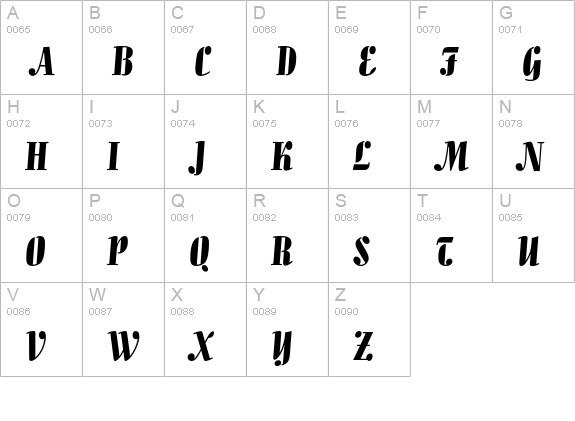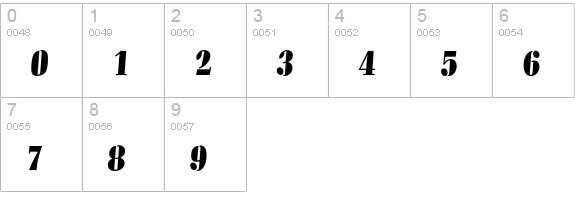
Allegro Font Details
Allegro font is a stunning display typeface that exudes elegance and sophistication. With its graceful curves and intricate details, this font is perfect for adding a touch of class to any design project. The flowing lines and decorative flourishes of Allegro font make it ideal for creating eye-catching headlines, invitations, and branding materials. What sets Allegro font apart is not only its beauty but also its versatility. Whether you're designing a wedding invitation or a high-end fashion magazine, this font will elevate your work to the next level. Its timeless aesthetic and classic appeal make it a go-to choice for designers looking to make a statement. The best part? Allegro font is completely free to download at FontsMarket.com. So you can add this exquisite typeface to your collection without breaking the bank. Don't miss out on the opportunity to enhance your designs with the elegant charm of Allegro font. Download it today and see the difference it can make in your projects.